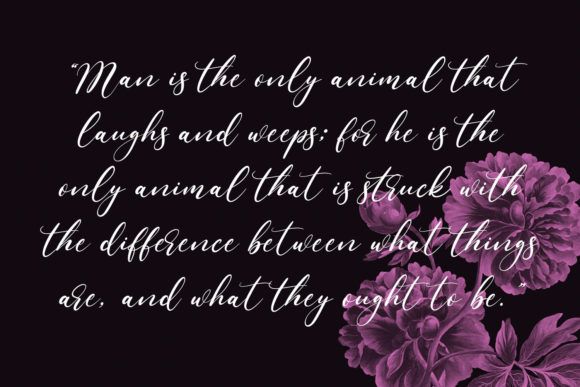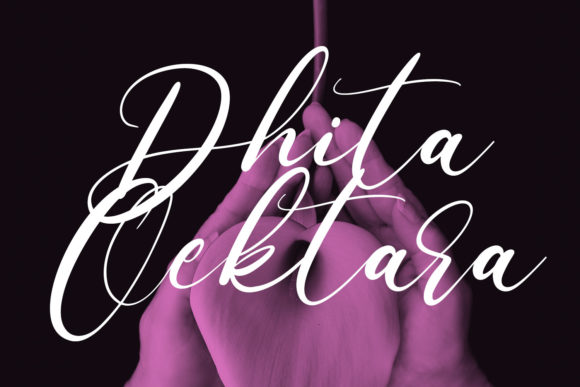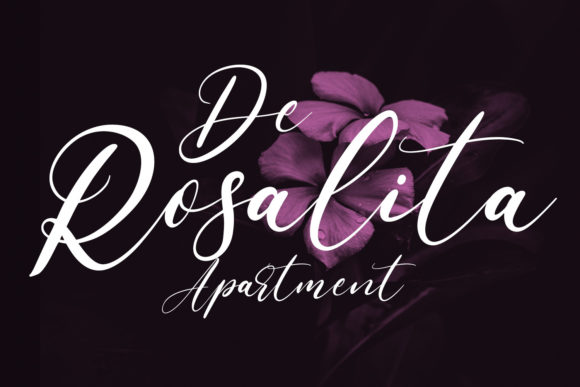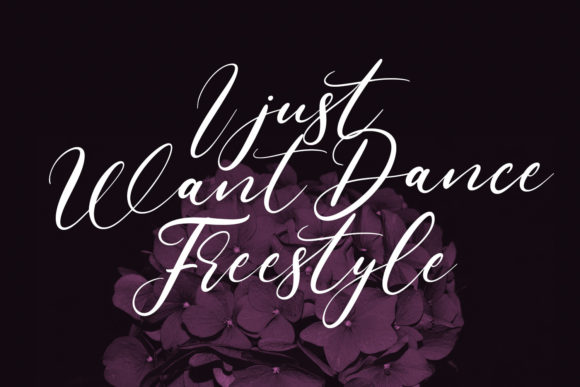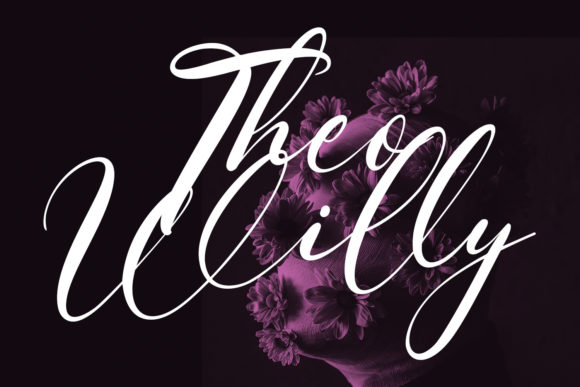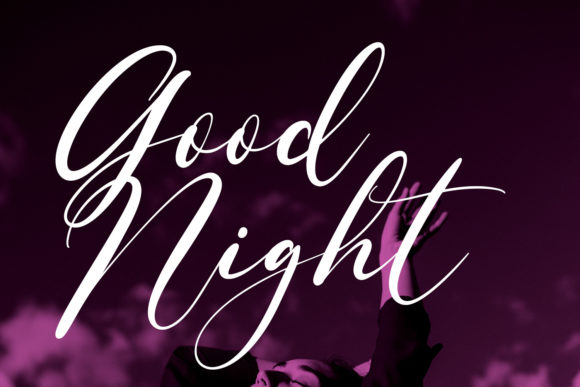
Introduction to Keiranty Font
As a designer, you know that finding the perfect font can be the difference between a good design and a great one. I still remember the moment when I stumbled upon the Keiranty Font, and I knew I had to add it to my collection. Its unique, handwritten style instantly caught my attention, and I couldn’t wait to see how it would elevate my next creative project.
With its medium contrast strokes, fun characters, ligatures, and alternates, the Keiranty Font is a versatile design resource that can add a touch of sophistication to any project. Whether you’re working on a branding project, a wedding invitation, or a social media campaign, this high-quality font is sure to impress. And the best part? It’s available for free download, making it an accessible design resource for designers of all levels.
Key Features of Keiranty Font
- The Keiranty Font is a versatile design resource suitable for a wide range of applications, from branding and marketing materials to digital products and publications.
- One of the unique characteristics of the Keiranty Font is its intricate details and ornate design, adding a touch of elegance to any creative project.
- With its high level of detail and intricate design, the Keiranty Font is perfect for designers seeking a premium, high-quality font for their design resource collection.
Honest Review: Keiranty Font
As a designer, I’m always on the lookout for high-quality design resources to elevate my creative projects. Recently, I came across the Keiranty Font, which I’m excited to share my thoughts on.
- Unique and elegant design aesthetic that adds a touch of sophistication to any project.
- May not be suitable for very small text sizes, as it can become difficult to read.
Overall, I’m impressed with the Keiranty Font’s quality and design appeal. While it may have some limitations, it’s still a valuable addition to any designer’s toolkit. Whether you’re working on a personal project or a commercial design, the Keiranty Font is definitely worth considering.